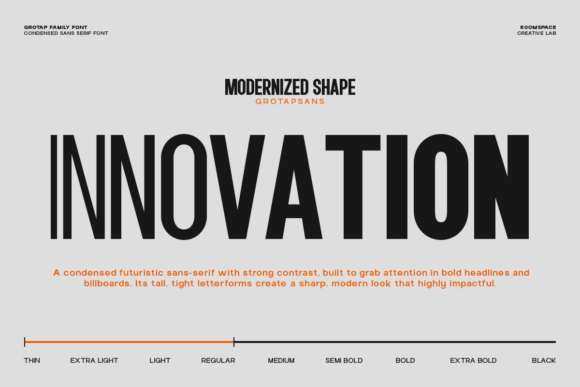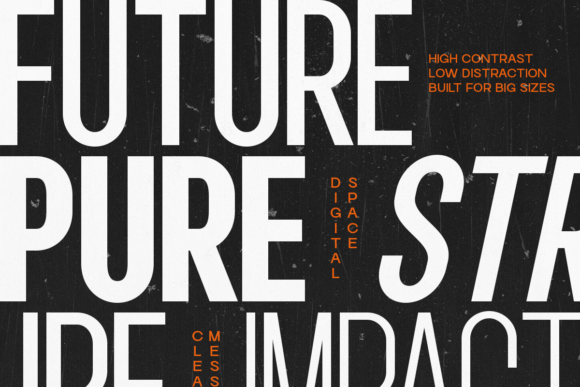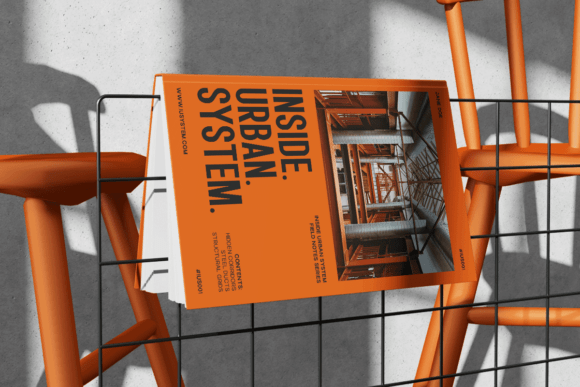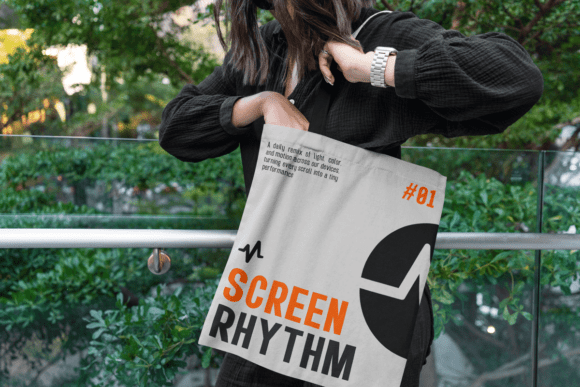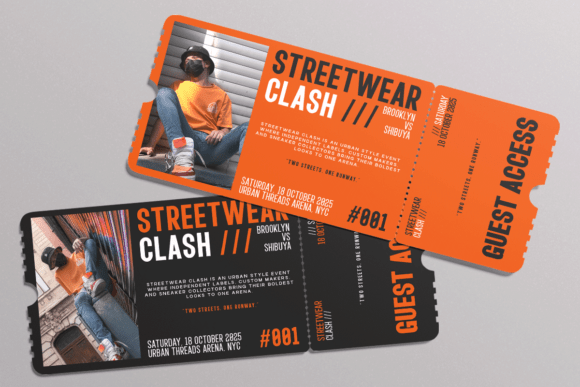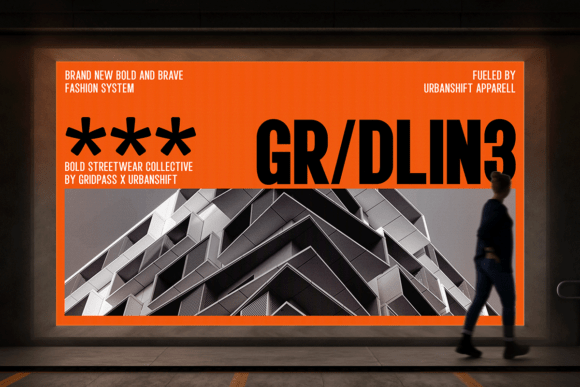
Introduction to Grotap Font
Have you ever stared at a blank canvas, waiting for the perfect font to bring your creative project to life? That’s exactly what happened to many designers when they discovered the Grotap Font. This bold and clean condensed sans-serif font family is the ultimate game-changer for branding, posters, and editorial design.
The Grotap Font’s clean, unwavering lines and stark efficiency make it a valuable resource for designers seeking high-quality typography. With its tight letter spacing and formidable structure, this expansive font family dominates the visual space with powerful, geometric precision. Whether you’re working on a massive headline, striking editorial design, or impactful corporate branding, the Grotap Font has got you covered.
Key Features of Grotap Font
- Includes a wide range of characters, including Latin, Cyrillic, and Greek alphabets, making it a versatile design resource.
- Designed with a modern and clean style, perfect for use in logos, branding, and other creative projects.
Honest Review: Grotap Font
I recently stumbled upon the Grotap Font and I must say, it’s been a game-changer for my creative projects. This high-quality font has been a fantastic design resource, offering a clean and modern aesthetic that’s perfect for a wide range of applications.
However, I do have a few reservations about the Grotap Font:
- ⚠️ The font can be a bit too minimalist for some projects, requiring additional design elements to add visual interest.
- ⚠️ The font may not be suitable for projects that require a lot of bold or dramatic typography.
Overall, I’m really impressed with the Grotap Font and would highly recommend it to designers looking for a high-quality, versatile font for their creative projects.
Alternatives to Grotap Font
The Aurora Font is a high-quality, creative font ideal for design projects that require a modern and elegant look. It features a transparent background and is perfect for creating a clean and minimalist design. When to use: For design projects that require a touch of sophistication and elegance. How it compares to Grotap Font: Aurora Font has a more rounded and delicate look compared to Grotap Font’s bold and geometric style.
The Montserrat Font is a popular design resource that offers a high-quality, urban feel. It features a transparent background and is perfect for creating a modern and edgy design. When to use: For design projects that require a bold and urban look. How it compares to Grotap Font: Montserrat Font has a more geometric and industrial look compared to Grotap Font’s bold and rounded style.
The Lato Font is a high-quality, creative font ideal for design projects that require a clean and modern look. It features a transparent background and is perfect for creating a minimalist design. When to use: For design projects that require a clean and simple design. How it compares to Grotap Font: Lato Font has a more rounded and elegant look compared to Grotap Font’s bold and geometric style.